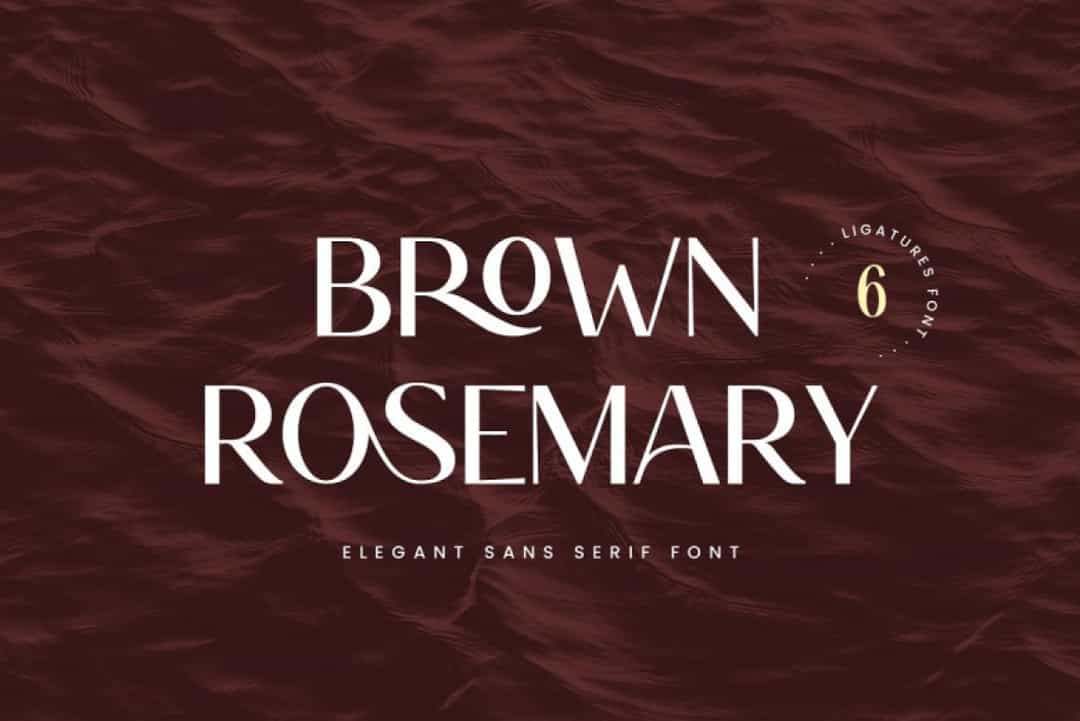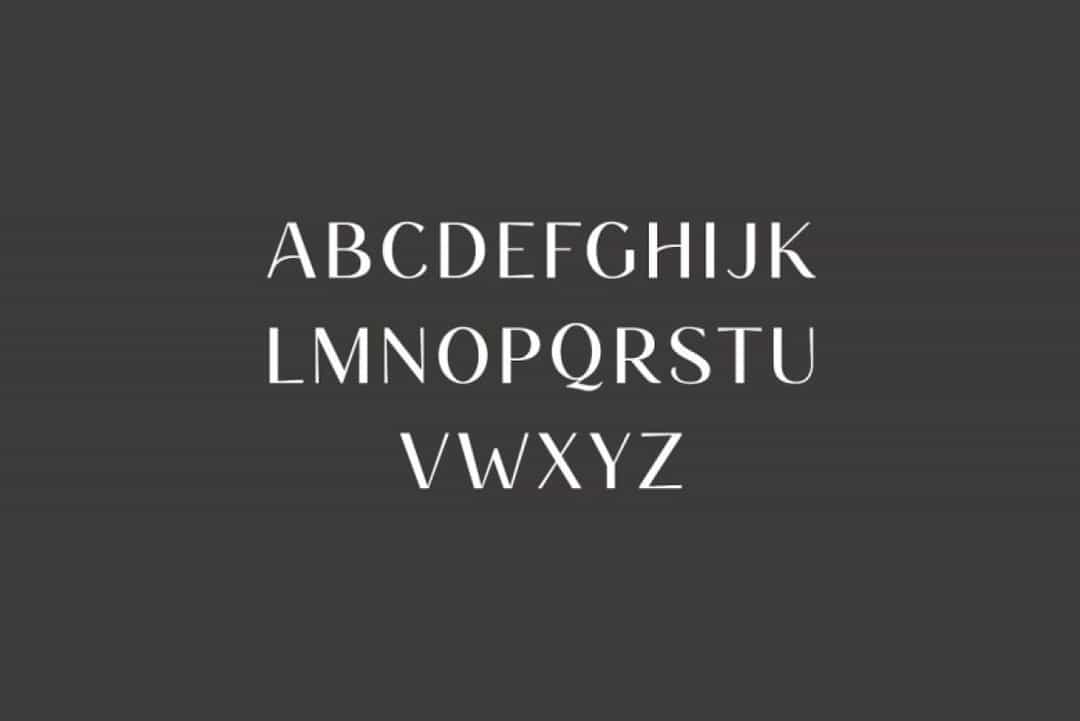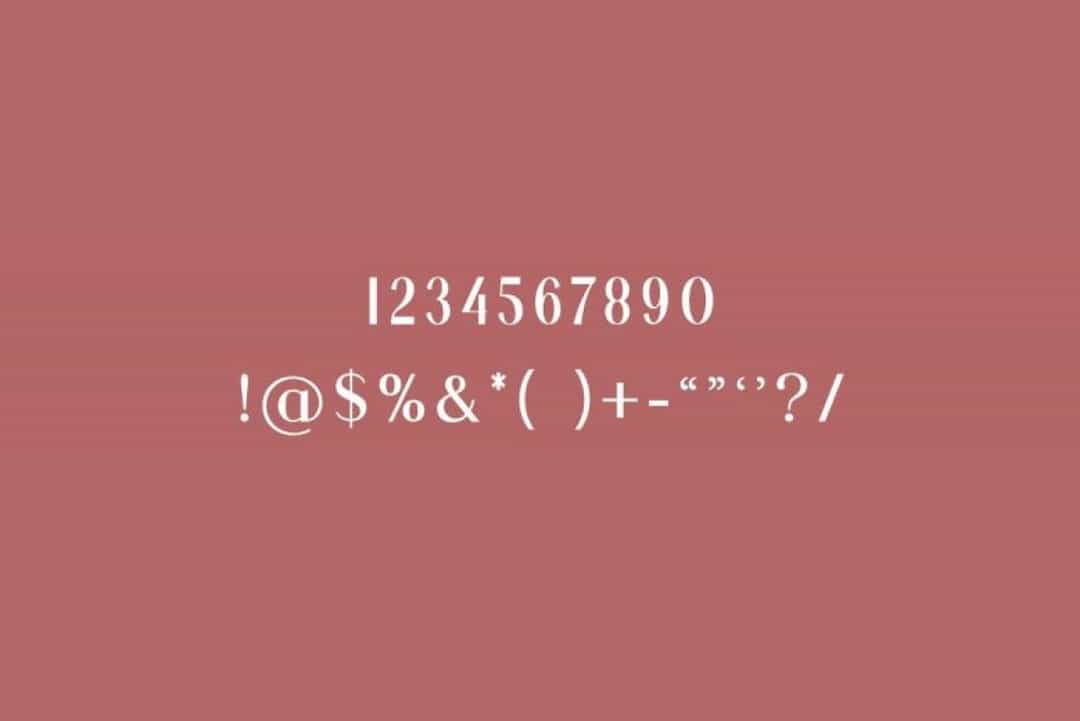
Brown Rosemary is an elegant sans-serif typeface that exudes sophistication and modernity, making it suitable for use across a range of projects, such as logo design, signatures and stationery wedding suites, typography quotes for book or magazine covers and book, magazine covers, headers on websites as well as clothing branding designs, packaging design projects and much more.